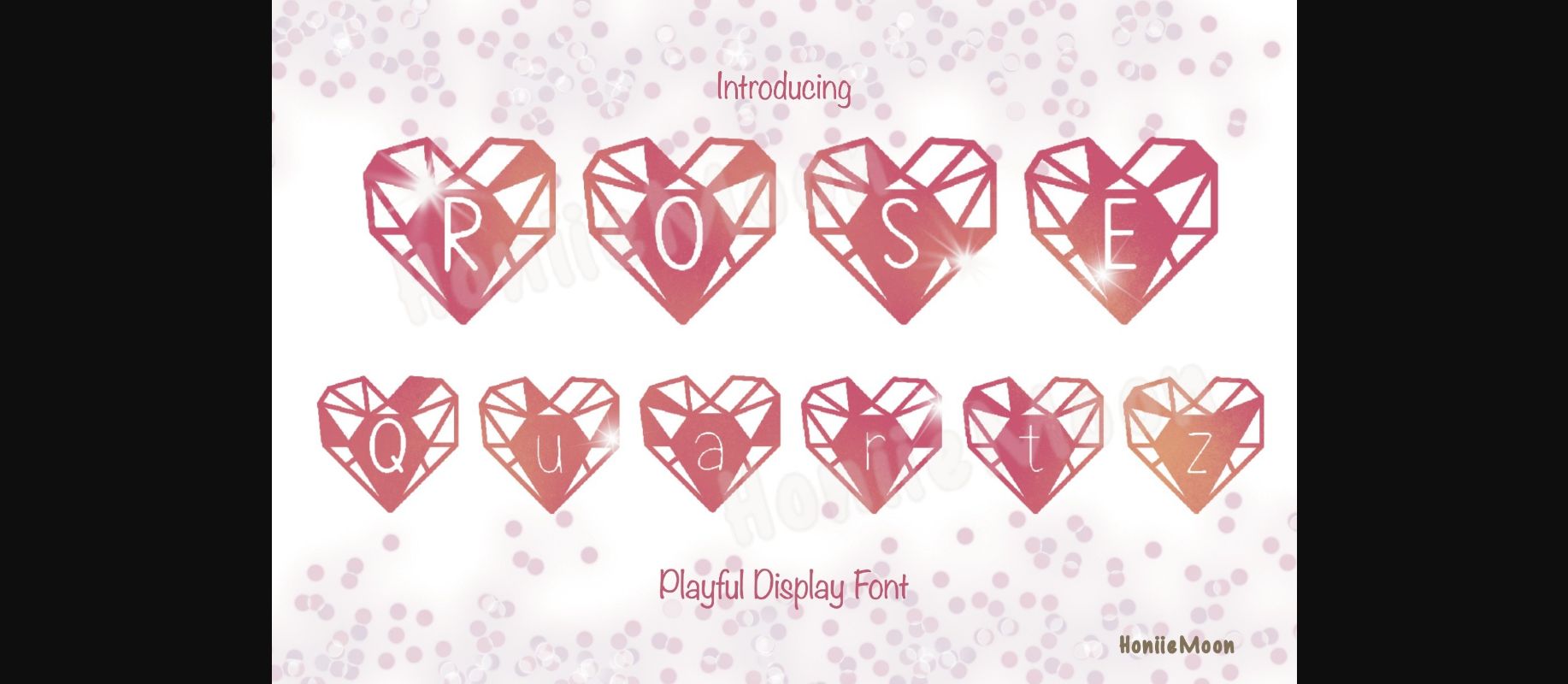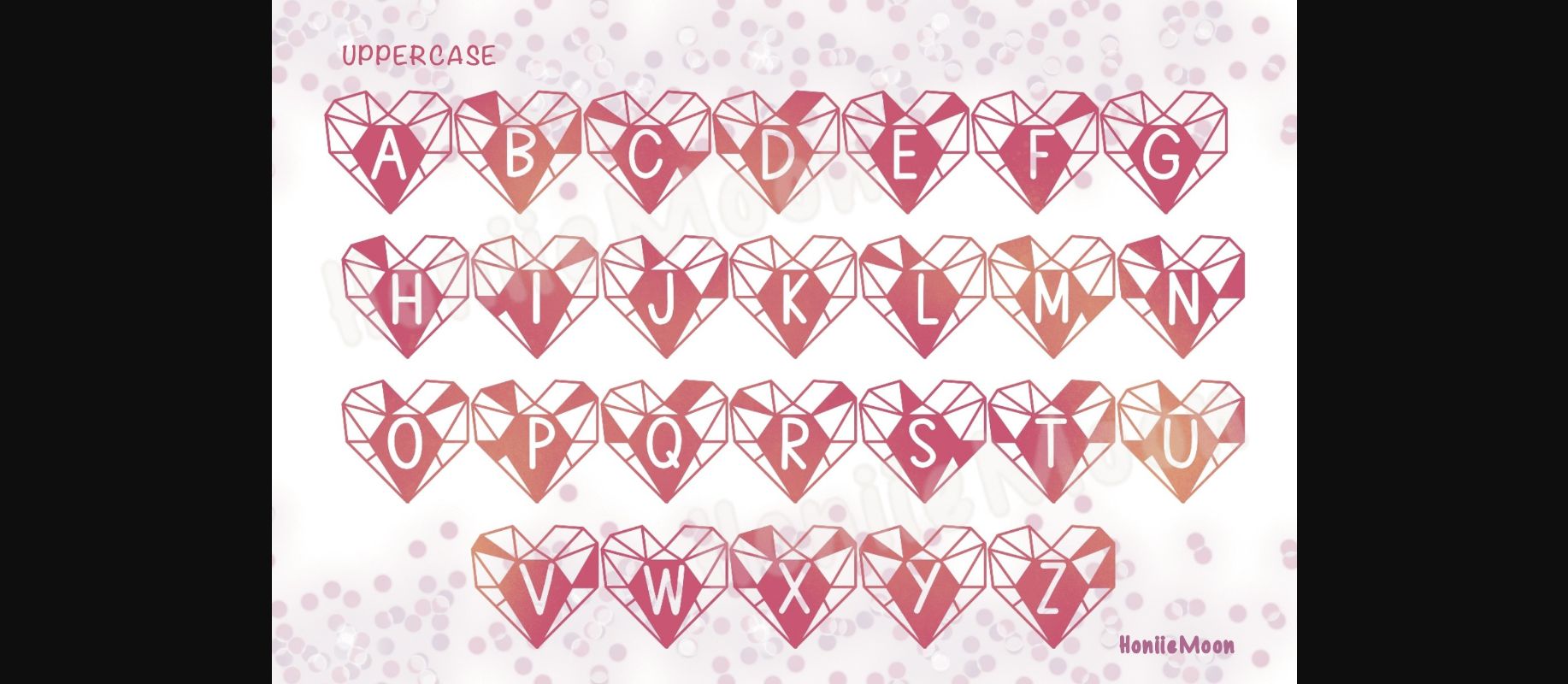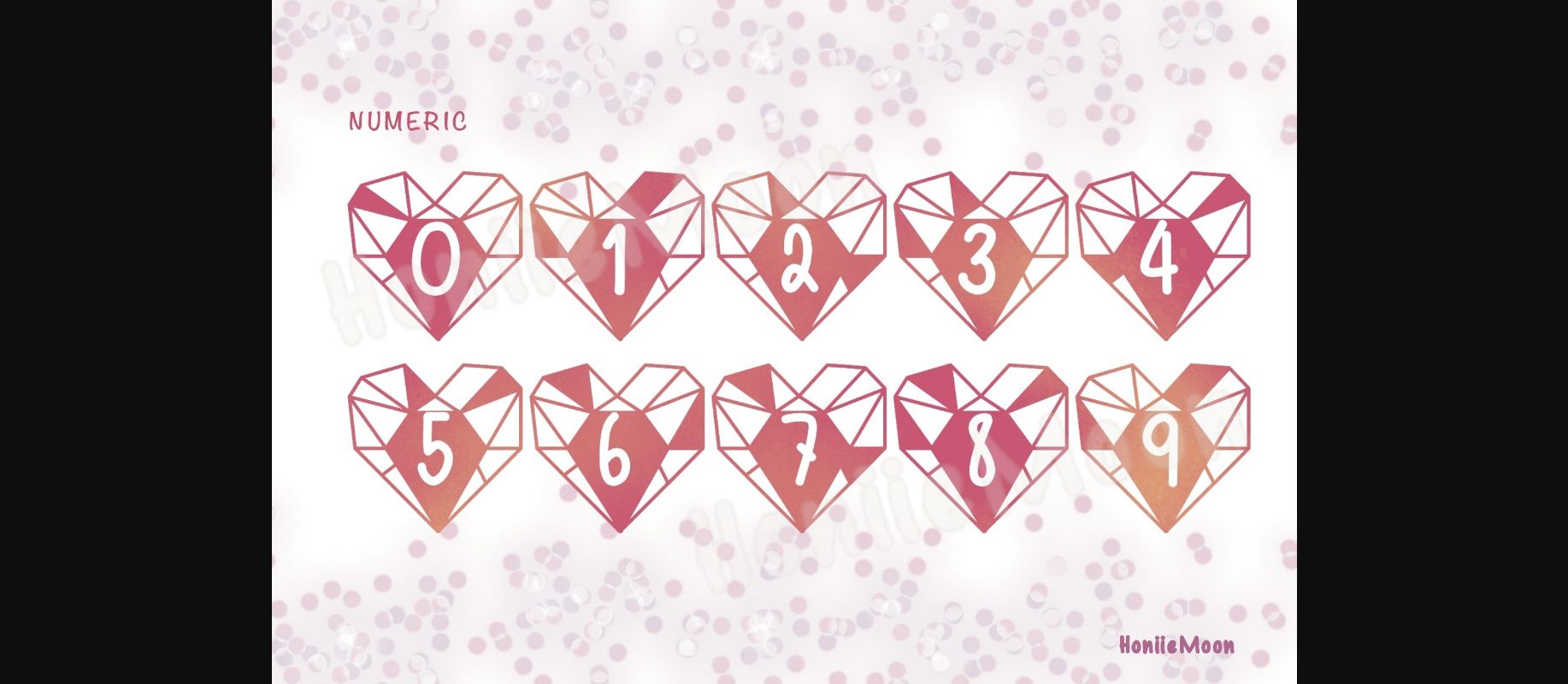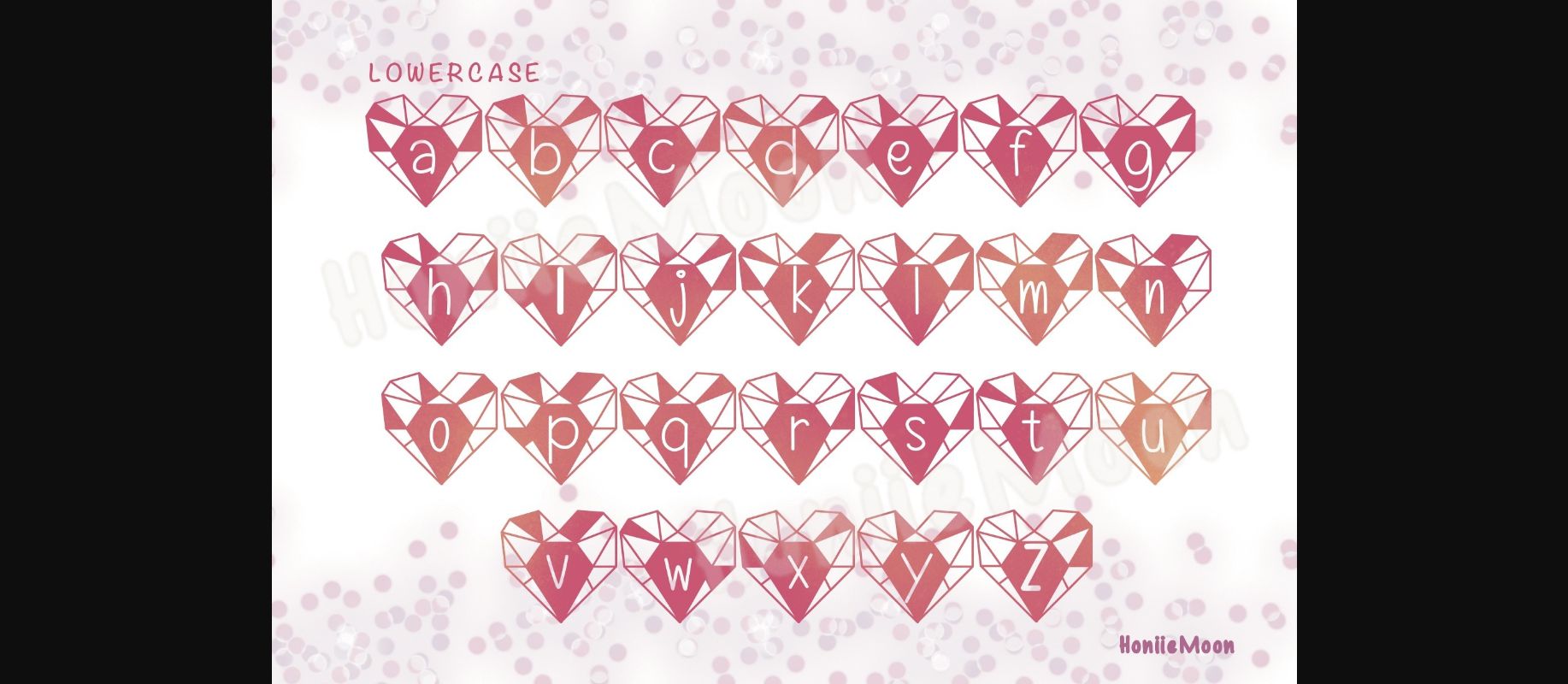
Rose Quartz is a cool and original decorative font. It looks both sparkly and unique and it will enhance each of your designs. The only limit is your imagination.